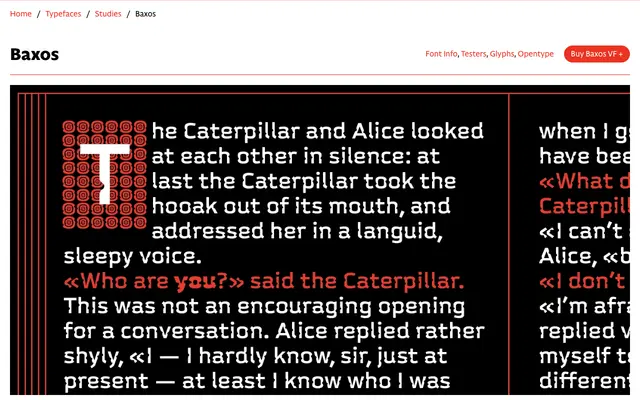
Baxos
CAST · Jennifer Lavia · 2020
Baxos specimen from CAST
A square geometric sans by Jennifer Lavia with signature indented stems, released as a variable font ranging from Light to Bold.
Designed by Jennifer Lavia from a Suprematist process workshop in Bari, the typeface builds its character around precisely placed indentations on vertical stems, each glyph carrying an alternate where the indent shifts position and shape. OpenType Contextual Alternates allow the two sets to interchange within a word or line, producing a restless, rhythmic texture that reads well at text sizes without surrendering its distinctiveness at display scale. The variable weight axis and broad Latin language support make it genuinely versatile despite the eccentricity of its core premise.
A square sans-serif with near-flat vertical curves and large x-height, rooted in geometric principles drawn from Suprematist form exploration. The absence of contrast and squarish construction place it firmly in the geometric grotesque tradition, though the indented stems introduce a highly individual character.